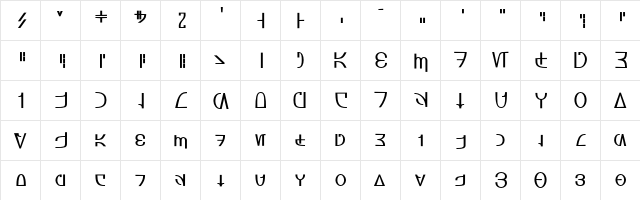
Aurebesh_Rodian normal
Design Context for Aurebesh_Rodian Typeface
Aurebesh_Rodian offers clean, dependable letterforms without strong stylistic allegiance, making it a practical choice for designers who need flexibility.